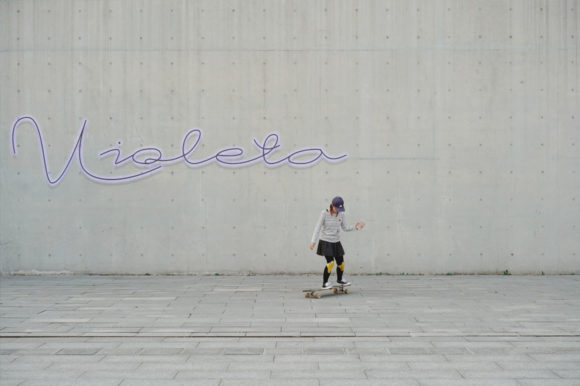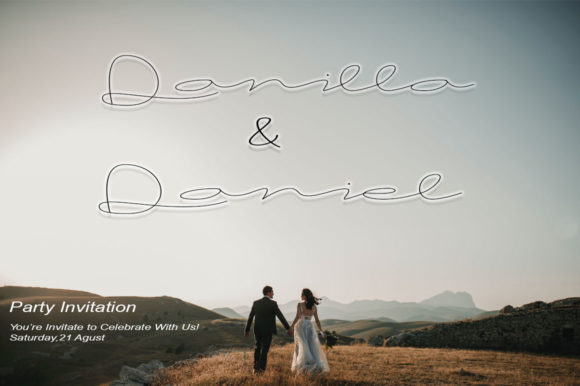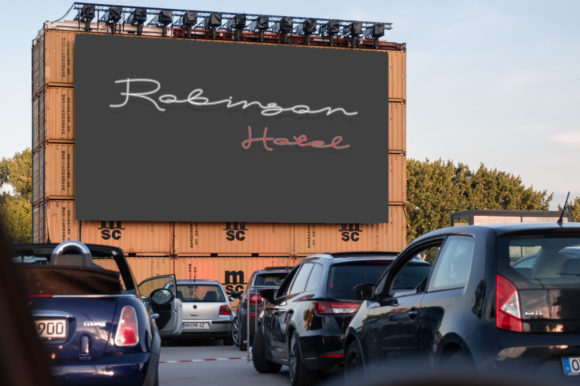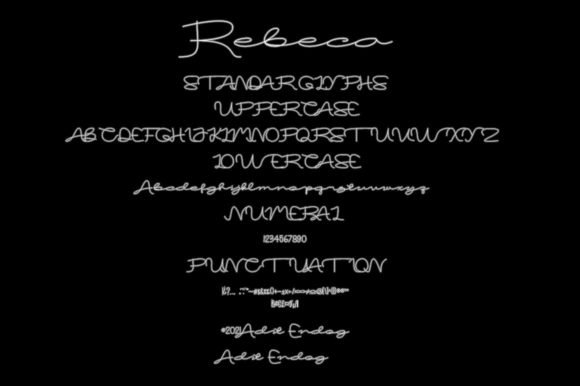
About Rebeca Font
Rebeca is a thin lettered and delicate script font. This font is PUA encoded which means you can access all of the glyphs and swashes with ease!